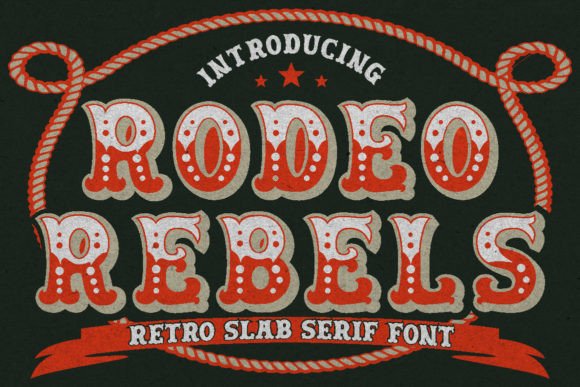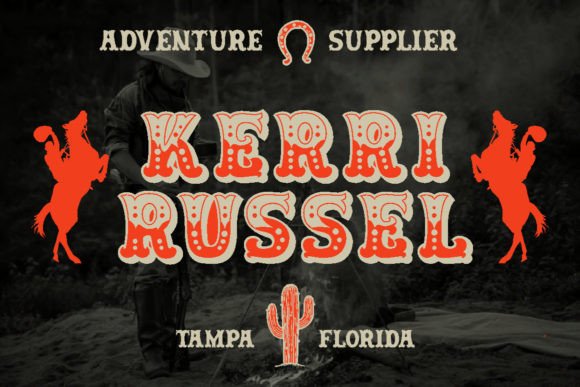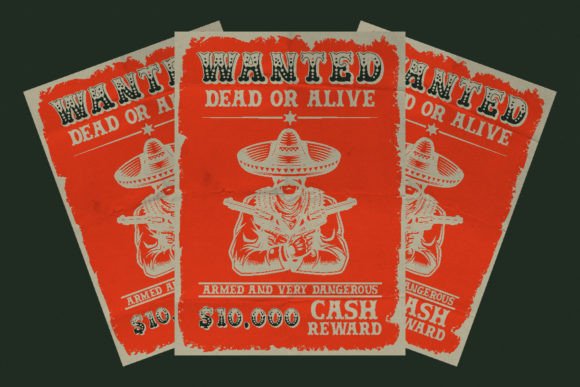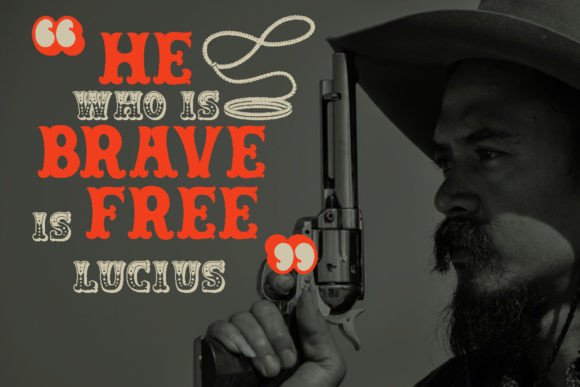
Rodeo Rebels Font: A Bold Retro Display Font for Western & Vintage Designs
About the Rodeo Rebels Font
Experience the unique personality of Rodeo Rebels Font, a font designed for impact. Rodeo Rebels – Display Typeface
Rodeo Rebels is a display typeface with a retro, cowboy, and western theme. It’s perfect for designs that require a bold and masculine touch, such as branding, packaging, posters, and headlines. The font was inspired by vintage rodeo posters and the American Old West, where bold, slab-serif typography was a common sight.
To make the most out of Rodeo Rebels, consider using it in designs that require a rugged and tough aesthetic, such as clothing and apparel, whiskey and beer packaging, and Western-themed events. Pairing it with other vintage-inspired elements, such as distressed textures and illustrations, can also help create a cohesive look and feel.
Rodeo Rebels Font Usage Examples
Rodeo Rebels Font Example